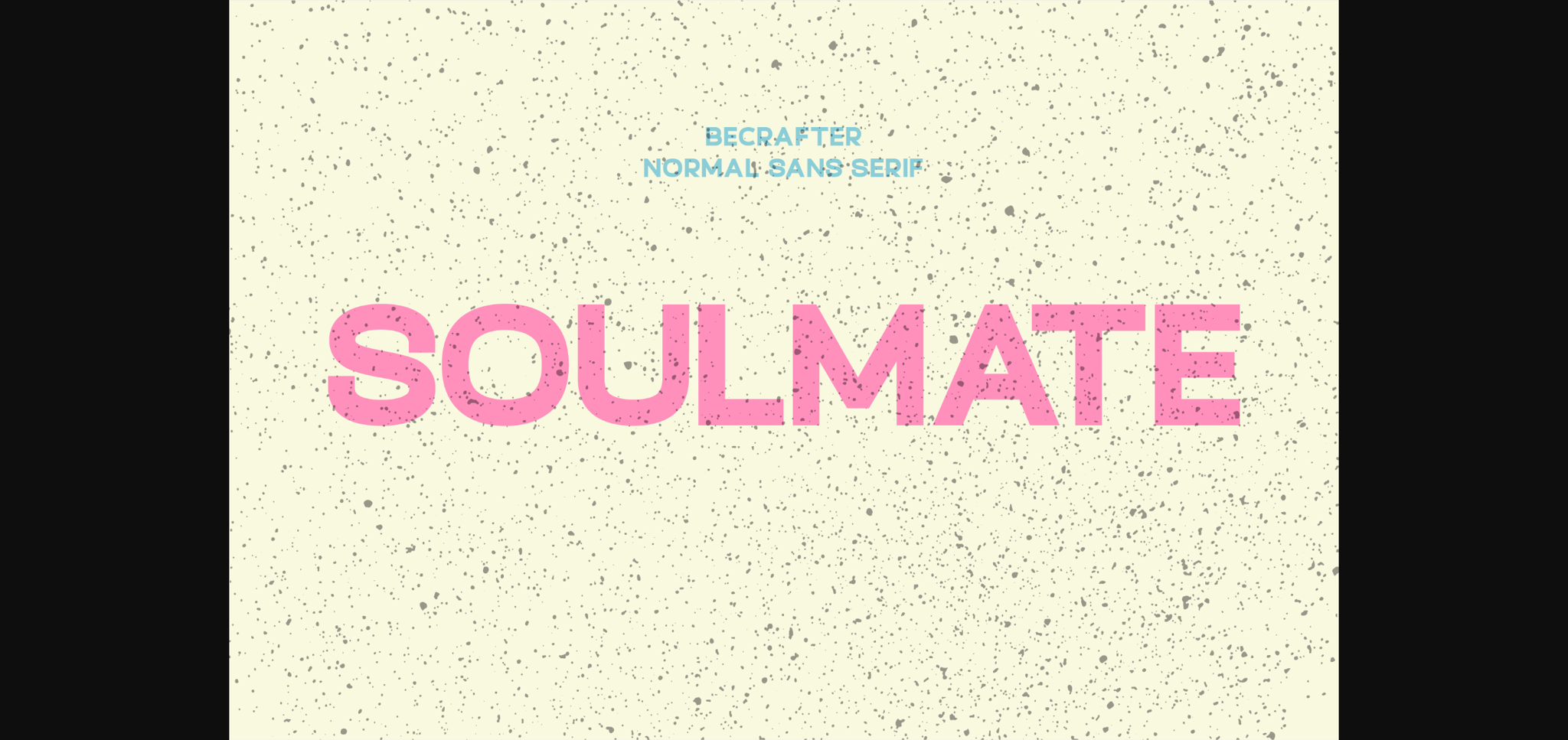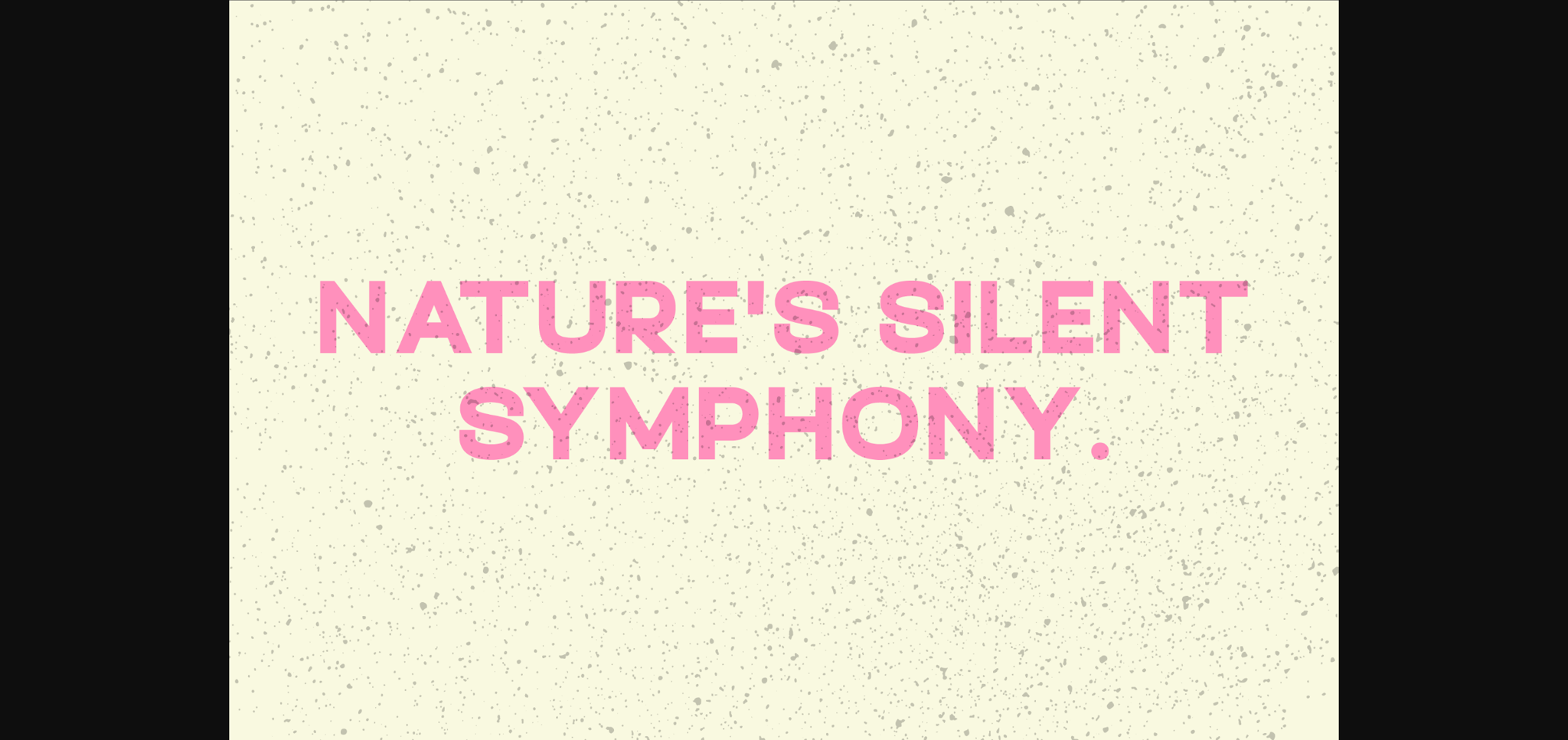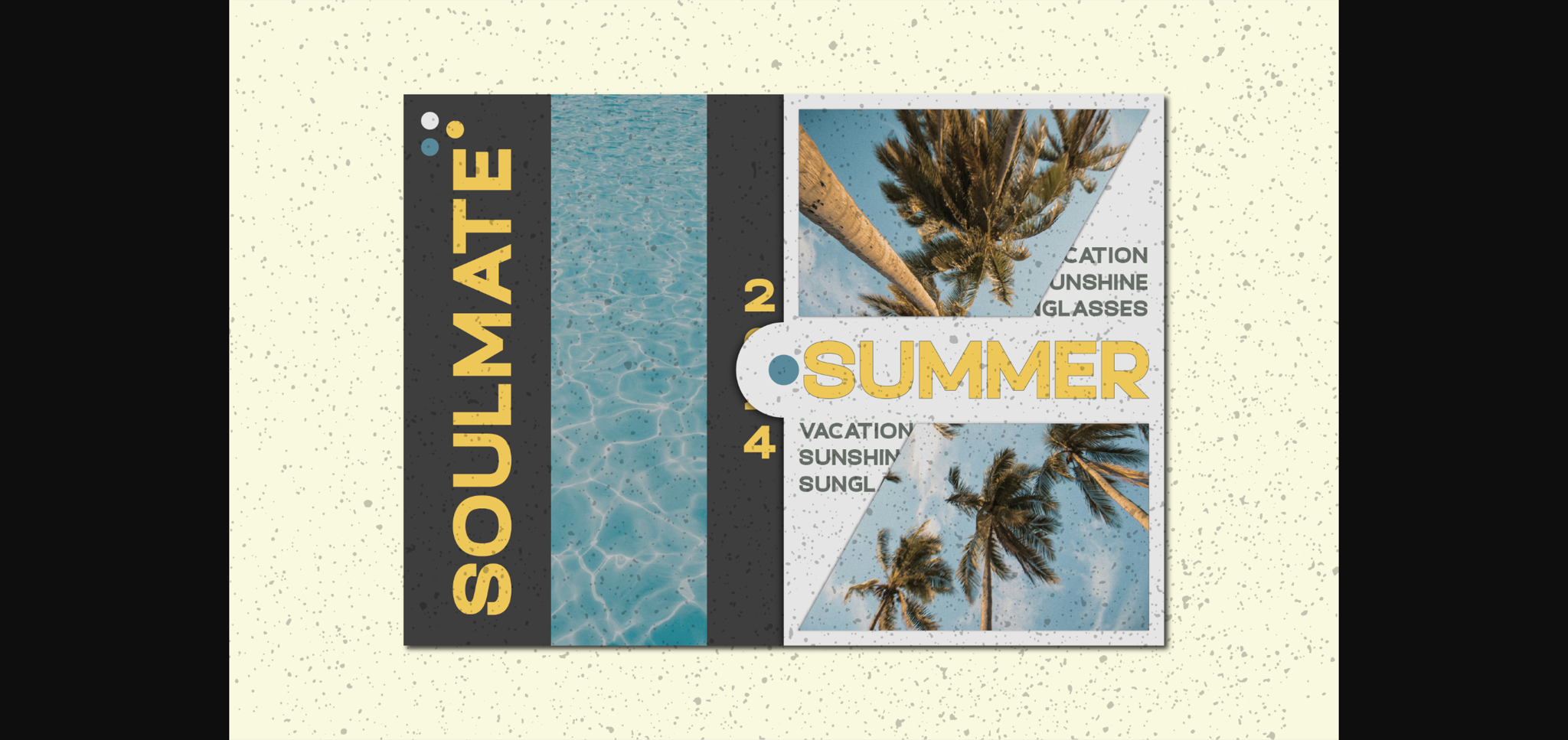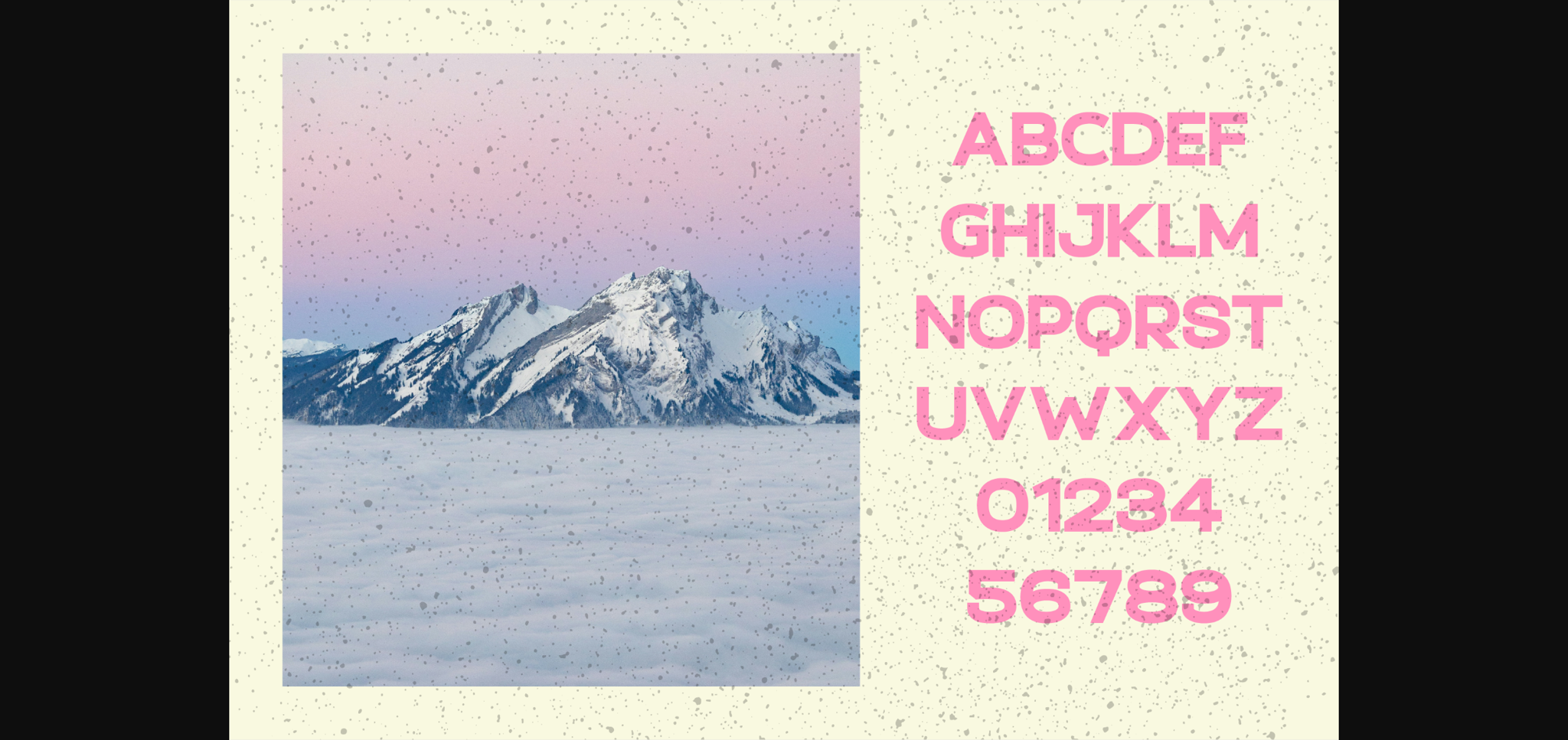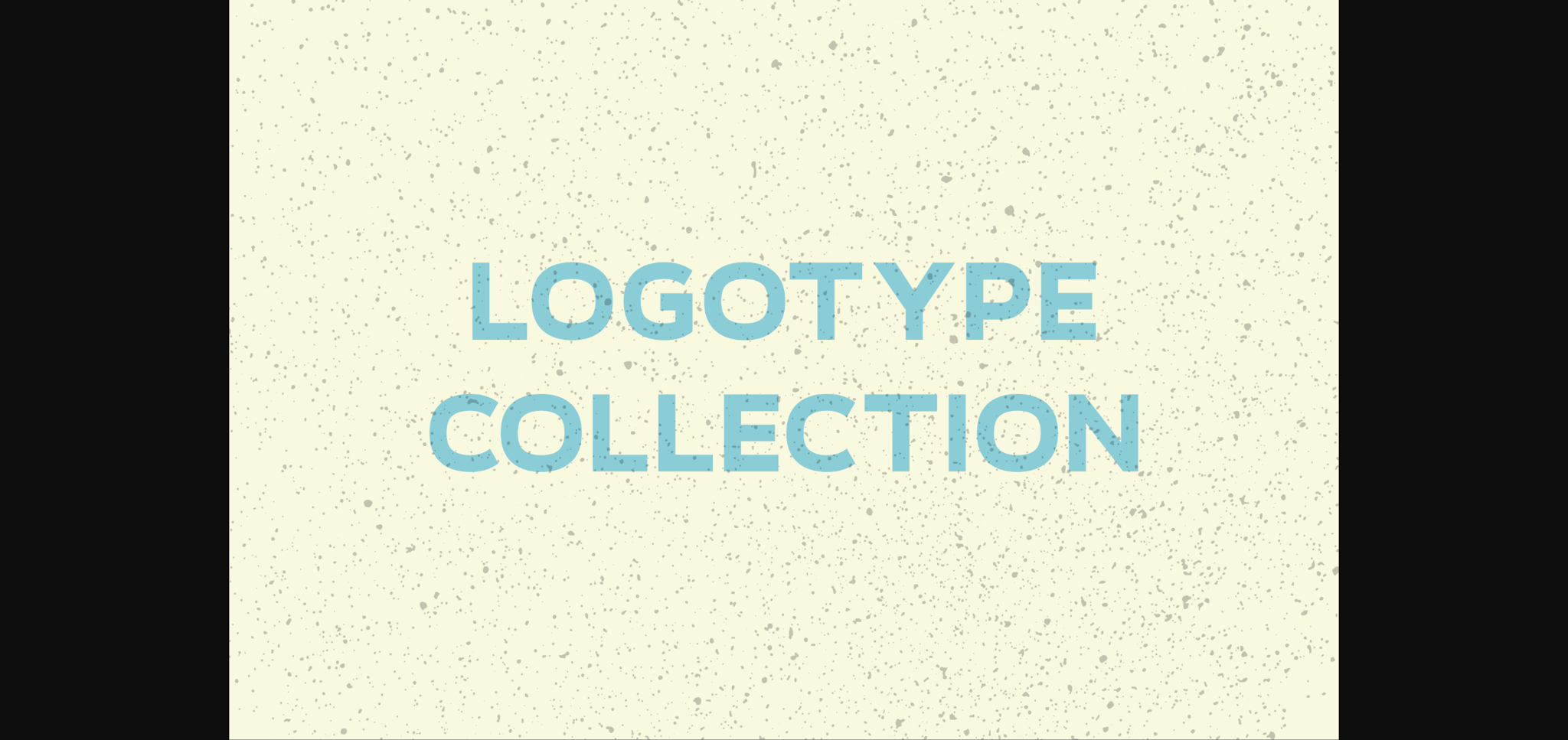
About Soulmate Font
Introducing Soulmate, a powerful bold typeface that seamlessly blends vintage charm with modern aesthetics. This uppercase sans serif font is a textbook definition of versatility, proving its mettle across a multitude of designs. Its strong, elegant lines make it a cherished choice for logos that resonate or printed materials that demand attention. In the Soulmate package, you’ll find more than just letters – there are numerals and punctuation too. Discover the one-of-a-kind magic your designs have been missing with Soulmate today!